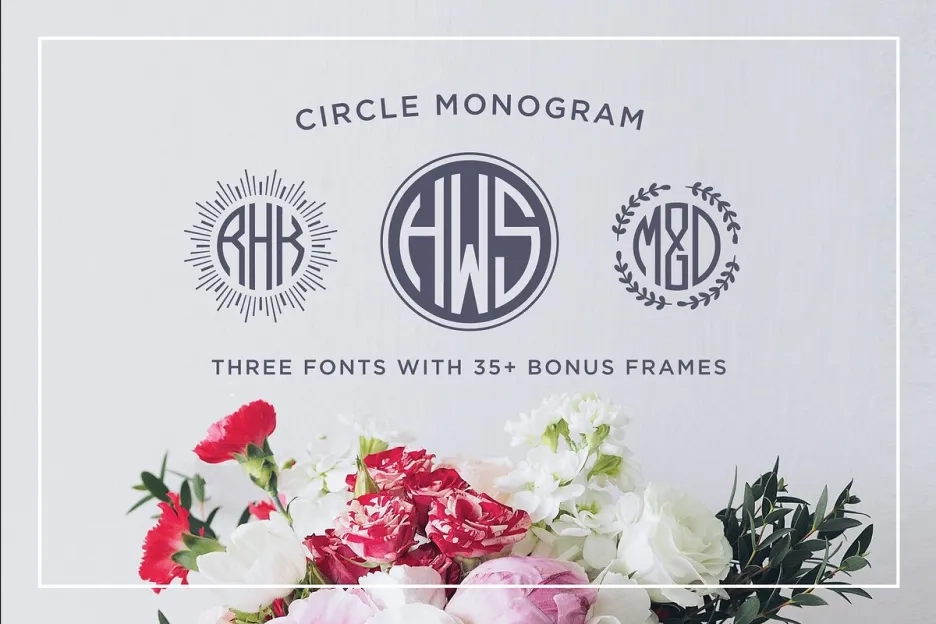
Circle Monogram Font
The Circle Monogram Font is a beautifully crafted typeface that combines elegance with versatility. This font features a unique circular design, perfect for creating personalized monograms and logos that stand out.
• Stylish circular letterforms
• Uppercase and lowercase characters
• Multiple weights for varied design needs
• Includes special characters and ligatures
• Weight options: Regular, Bold
Ideal for branding, invitations, and any project that requires a personal touch. Use it for logos, stationery, and web design to create a cohesive and stylish aesthetic.